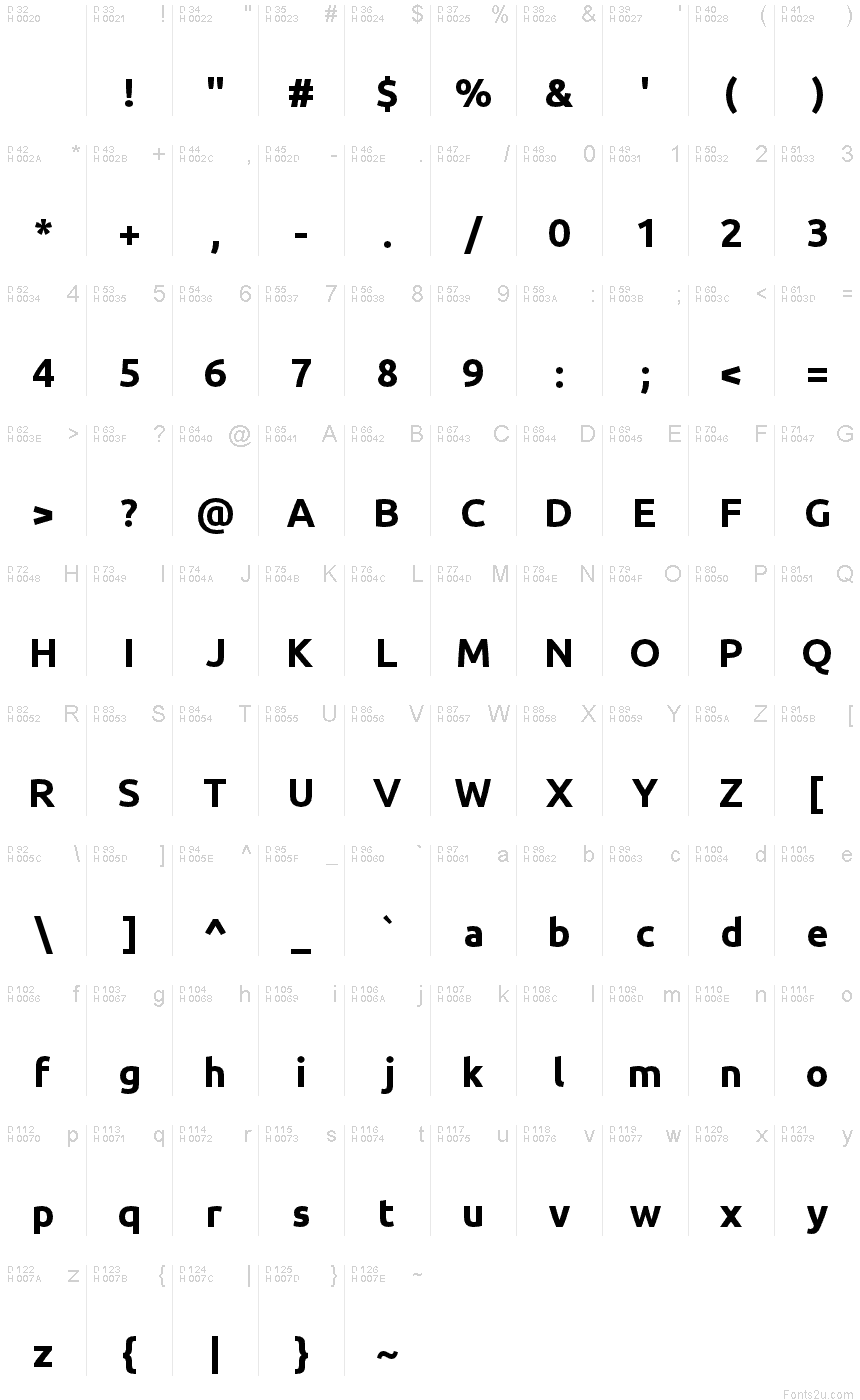
Ubuntu Bold
The Ubuntu Font Family are libre fonts funded by Canonical Ltd on behalf of the Ubuntu project. The font design work and technical implementation is being undertaken by Dalton Maag. The typeface is sans-serif, uses OpenType features and is manually hinted for clarity on desktop and mobile computing screens.
The scope of the Ubuntu Font Family includes all the languages used by the various Ubuntu users around the world in tune with Ubuntu's philosophy which states that every user should be able to use their software in the language of their choice. The project is ongoing, and we expect the family will be extended to cover many written languages in the coming years.